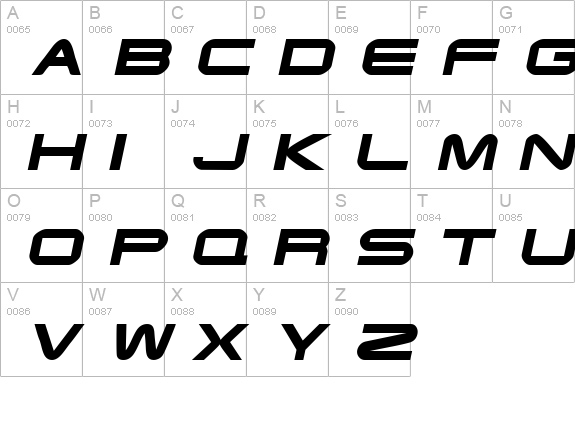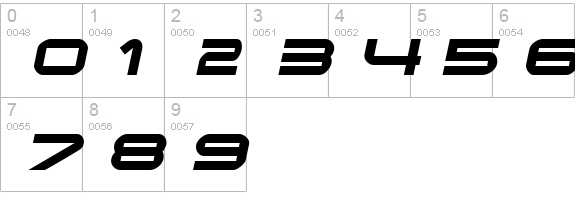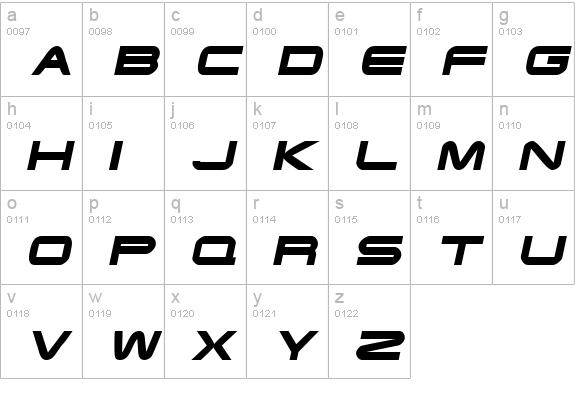
Endzone Oblique is a distinctive, italic variant in the Endzone typeface family \xE2\x80\x94 well suited to design and typography projects.
Endzone Oblique font is a sleek and modern typeface that exudes a sense of sophistication and style. Its unique slanted design adds a touch of dynamic energy to any project, making it perfect for branding, headlines, and more. The sharp angles and clean lines of Endzone Oblique give it a bold and edgy look that commands attention. What makes Endzone Oblique even more appealing is that it is completely free to download at FontsMarket.com. This means you can easily add this eye-catching font to your collection without any cost, making it a valuable asset for any designer or creative professional. With its versatility and striking visual impact, Endzone Oblique is sure to elevate your designs to the next level.